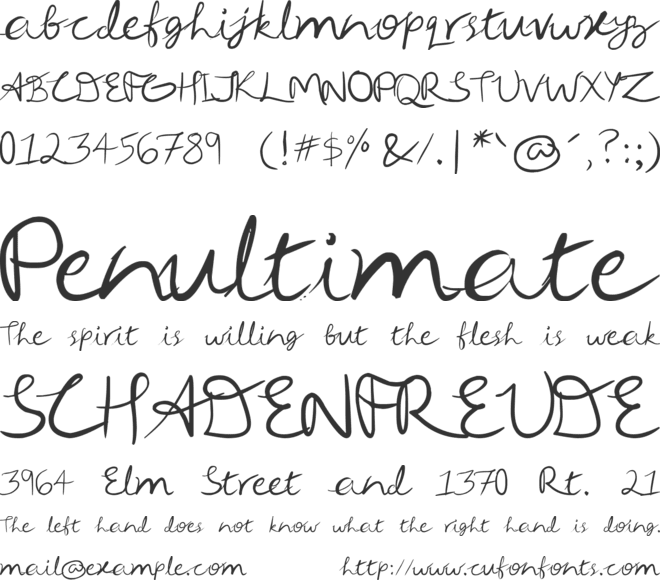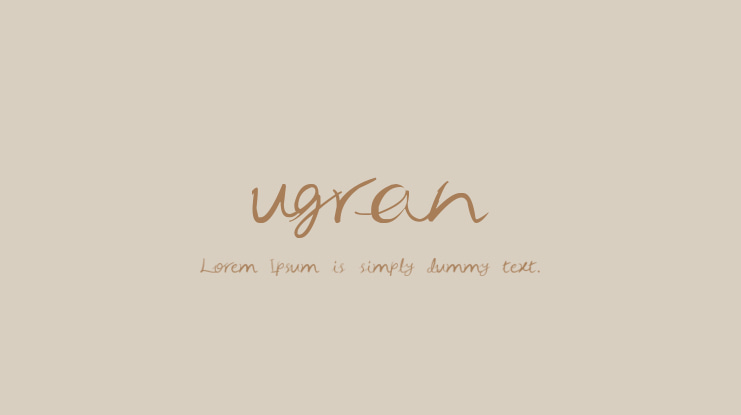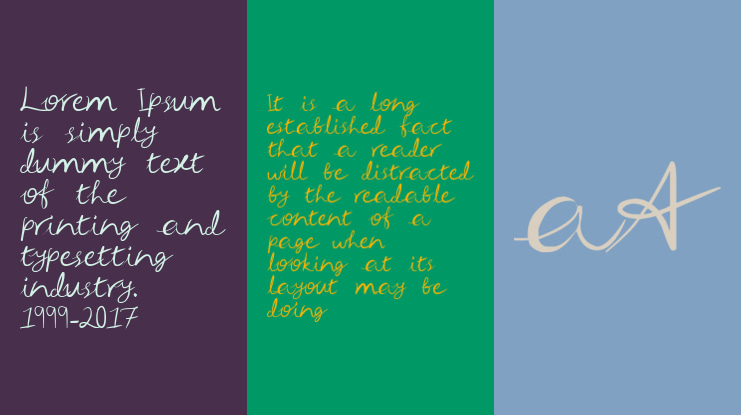
ugran Font
"Ugran" is the Malayam word for "Superb". This is a handwritten font, by Ajith Rajan. Visit http://artvsaccounting.tk/fonts for more free fonts and for license information.